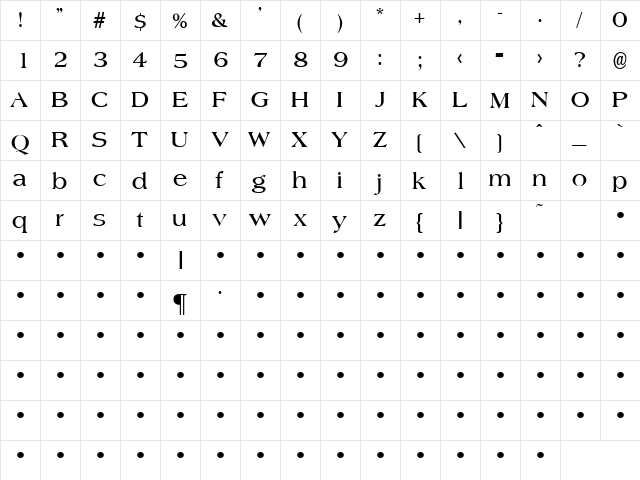
QTAgateType Bold
Design Context for QTAgateType Typeface
QTAgateType takes a measured approach to typography — its balanced proportions and neutral character make it a reliable workhorse for both digital and print work. Its bold stroke weight gives it real presence on the page.